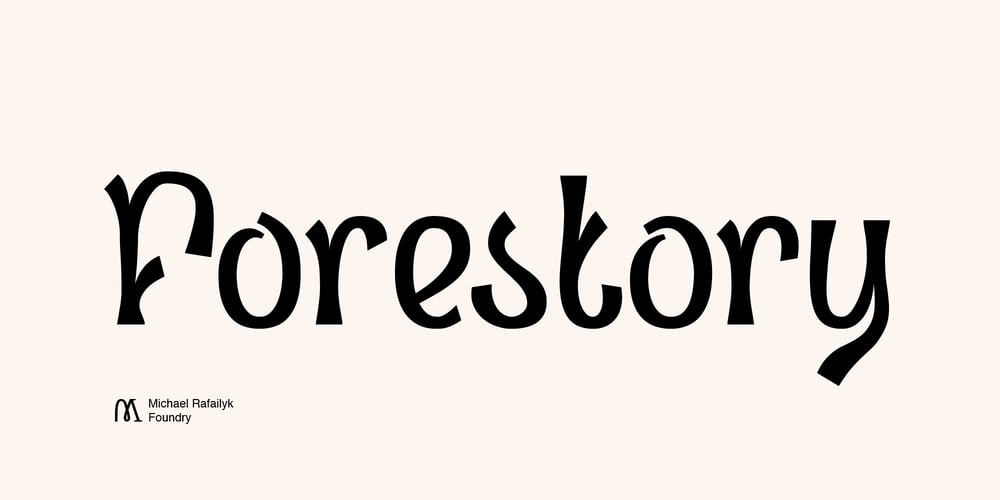
Forestory Font Family was designed by Michael Rafailyk and published by Michael Rafailyk. Forestory contains 5 styles and family package options. Forestory is a typeface that was born among the trees. Its natural curly shapes are filled with the magic of a forest full of stories.View PDF Specimen: https://michaelrafailyk.com/typeface/specimen/Forestory.pdfContextual Alternates: FF GG KK MM OO SS TT ZZ cc dd ee hh jj nn oo pp rr ss ww yy zz ГГ ПП бб λλ.Stylistic Alternates: ABDFGKMNOPRSTZabcdefghjmnopqrswz АБВГЖКЛМОПРТФЬЪЫЯабеёорсьъы ΑΒΓΖΚΜΝΟΠΡΤΦΆβδλορϲφ ÀÁÂÃÄÅĄĂĀẢẠẮẰẲẴẶẤẦẨẪẬÆĎĐÐĞĢŘŔŖàáâãäåąăāảạắằẳẵặấầẩẫậæďđèéêëěęēėẻẽẹếềểễệğģ 269.Stylistic Set: Unclosed (ss01). This set reveals the closed letterforms, making the typeface even more curly.Ligatures: VB VD VE VF VP VR WB WD WE WF WP WR YB YD YE YF YP YR ax cs cx es ex gp gr qp qr ux vr wr (+ their stylistic alternates). These ligatures are designed to connect some characters in a more natural way.The typeface includes Latin, Greek, Cyrillic scripts and supports up to 104 languages.The promo images used photos of Andie Venzl and Sarah Chai from Pexels.